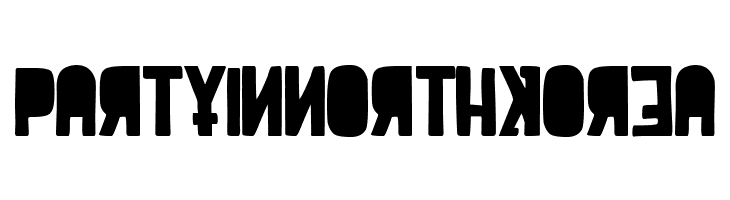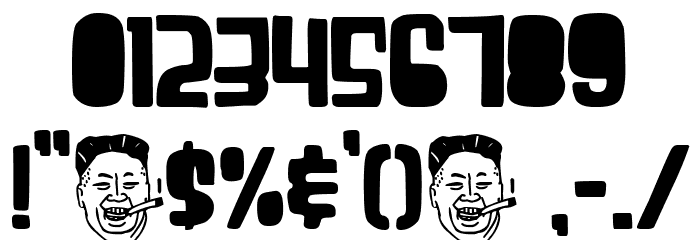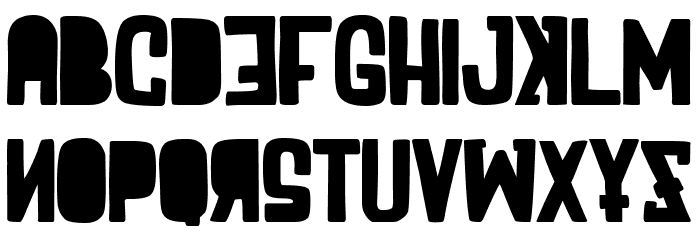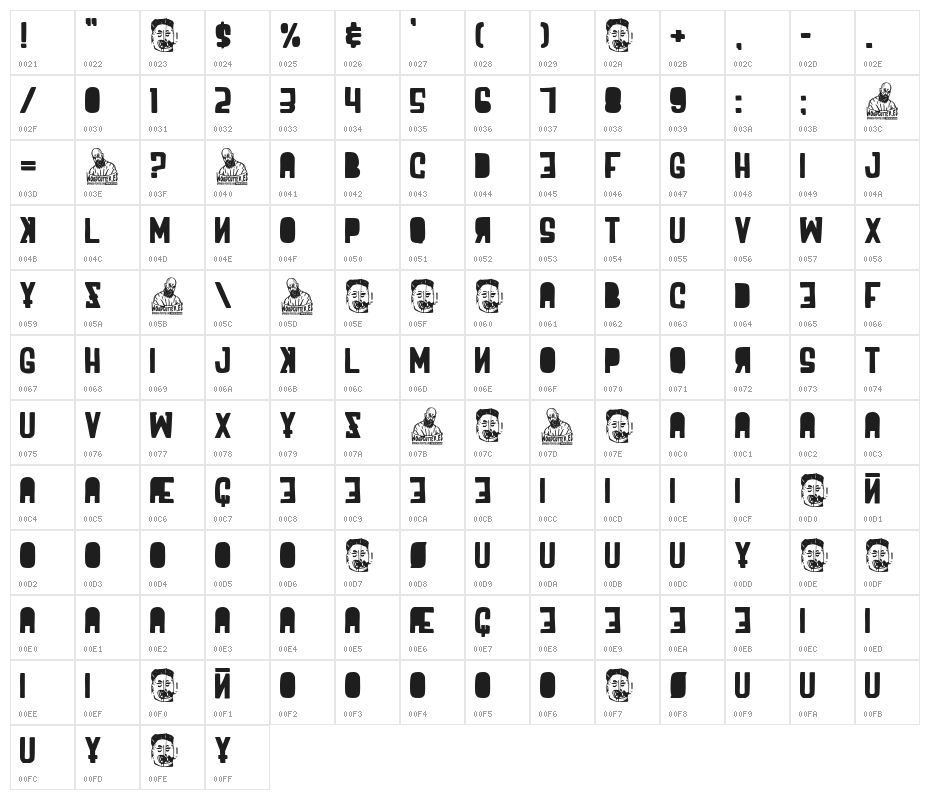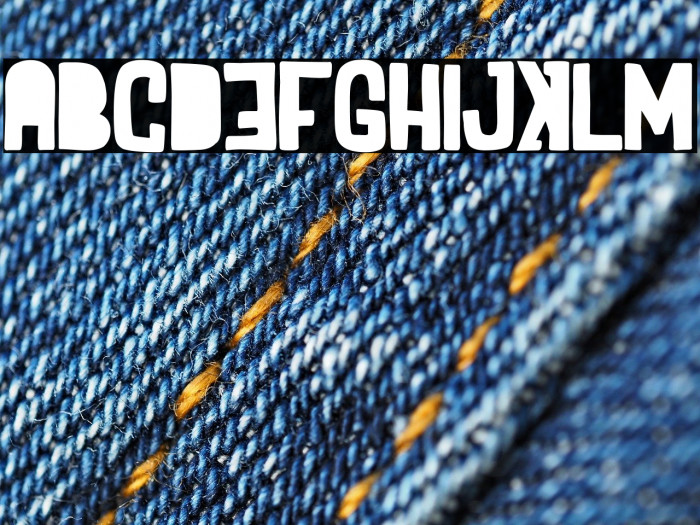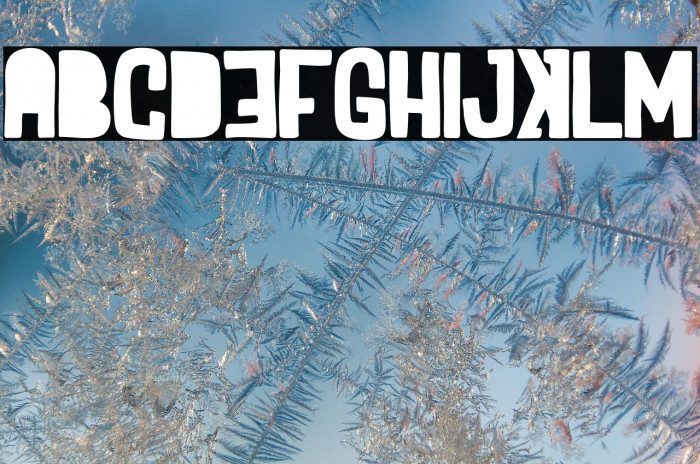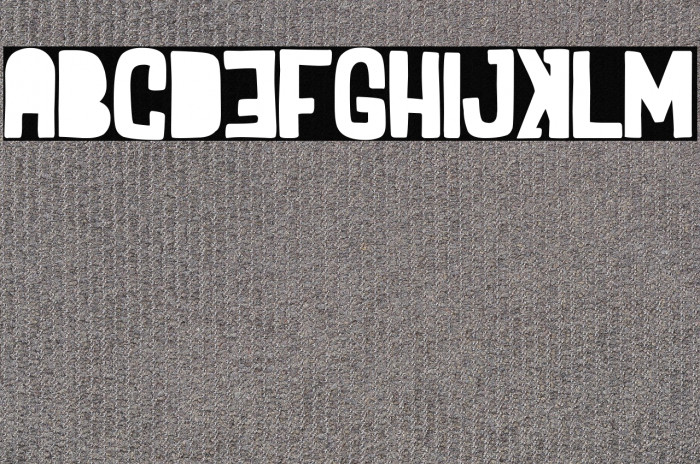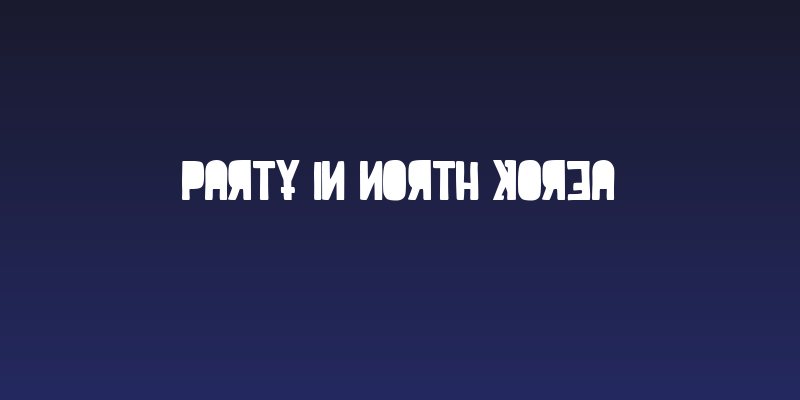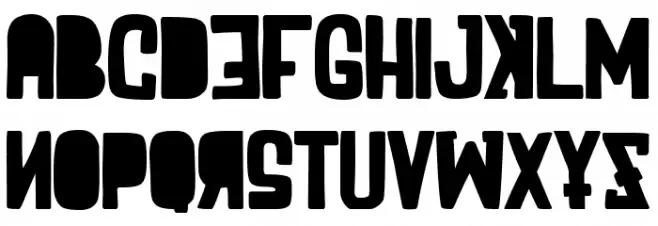
Party in North Korea Font
Party in North Korea Description
A bold, blocky display typeface with exaggerated geometric forms and playful, irregular shapes. The characters have a strong presence, with some featuring quirky, unexpected details and varying stroke thickness. The font includes uppercase, numbers, and select punctuation, with a humorous illustrated glyph.
| Overall Style | Decorative, Playful, Modern |
| Use Case | Headlines, Posters, Logos, Event Graphics |
| Proposed Projects | Posters, party invitations, event branding, satirical graphics, merchandise, editorial headlines. |